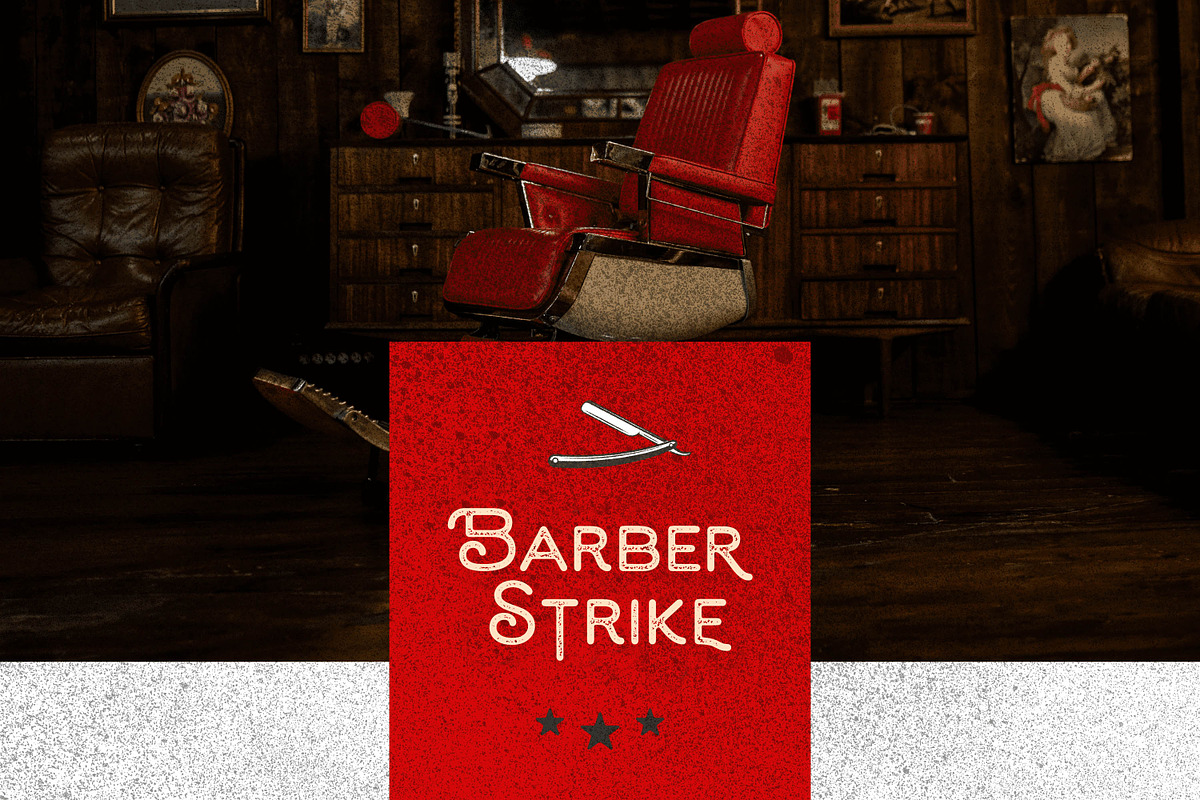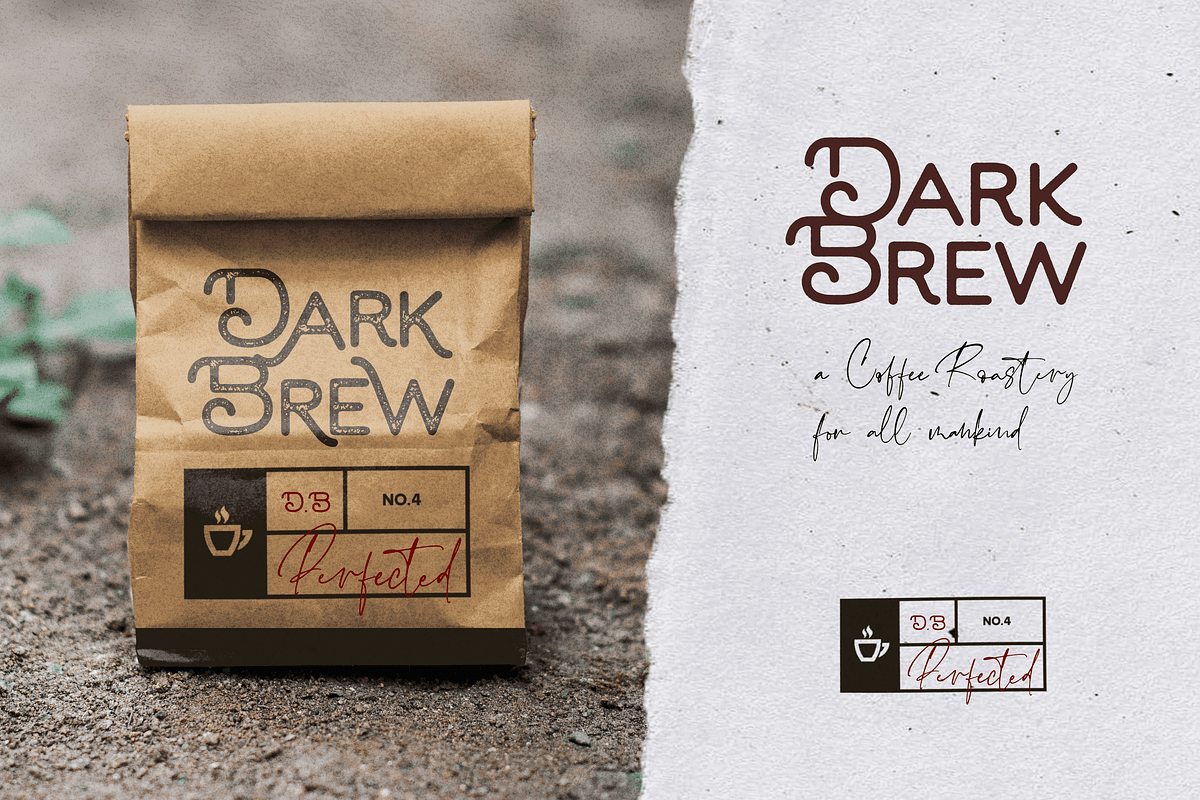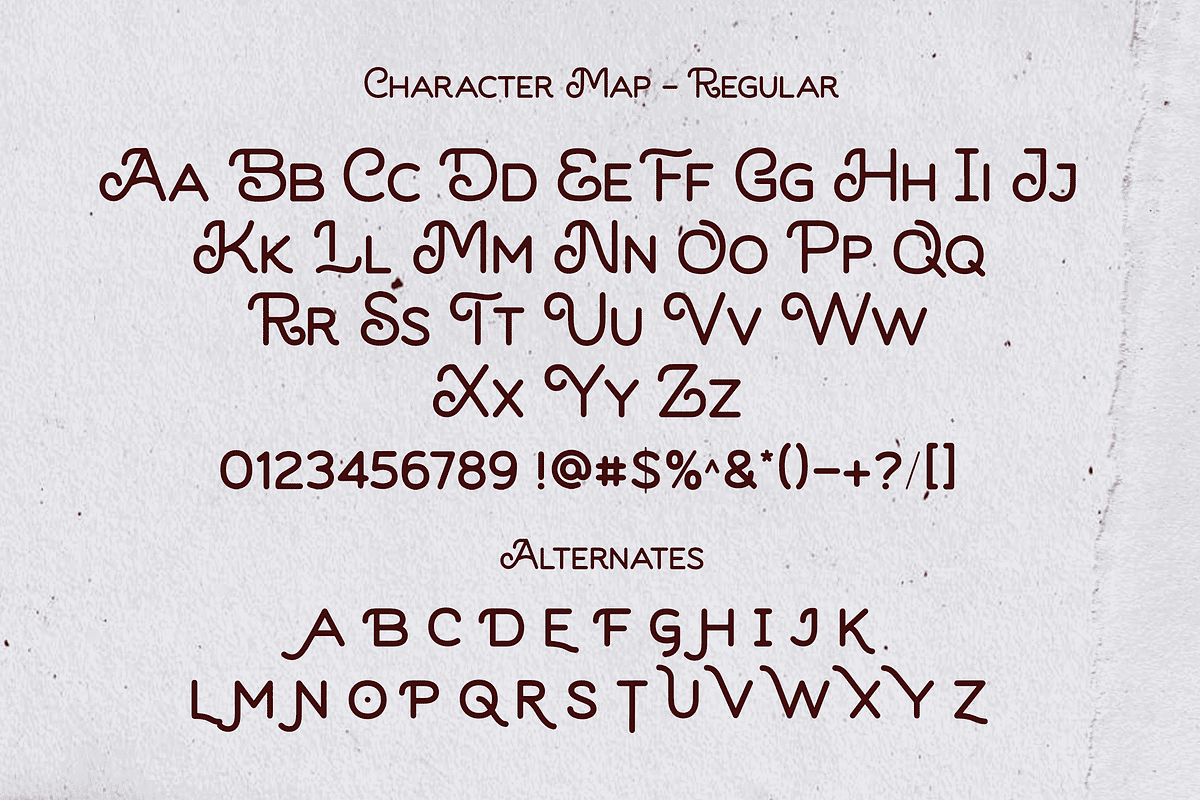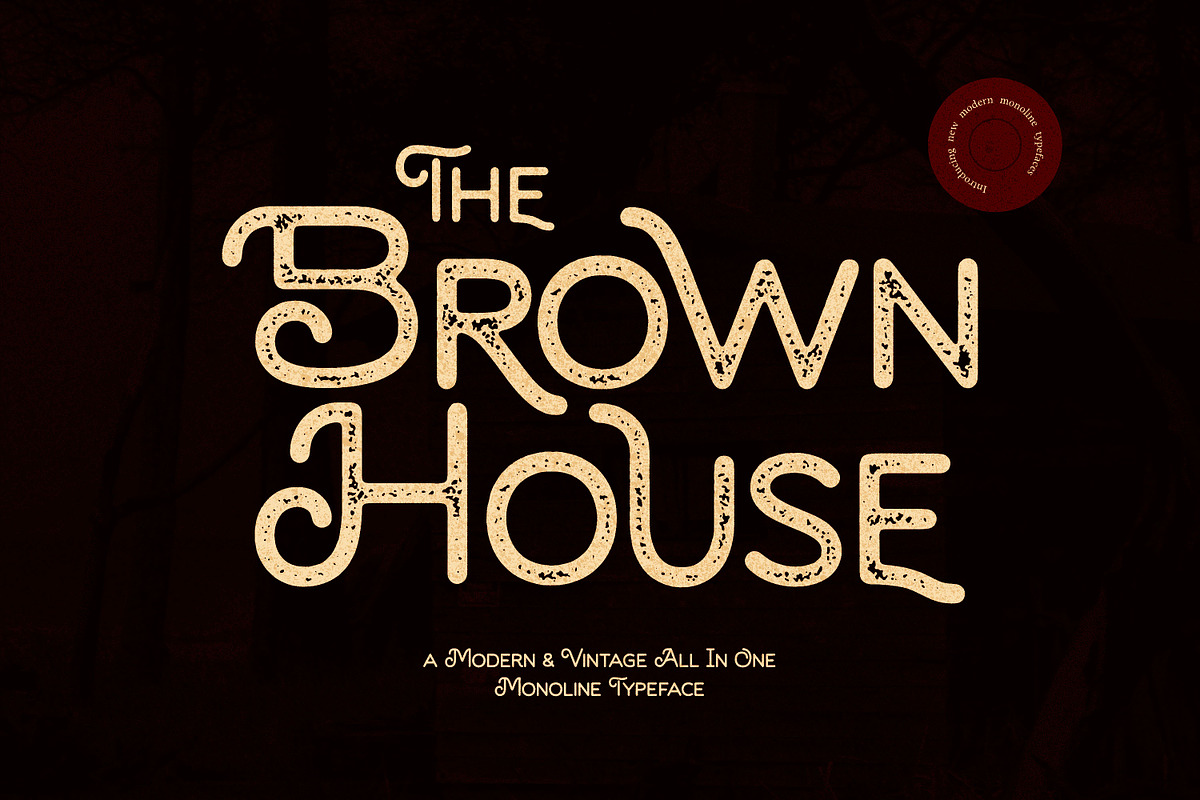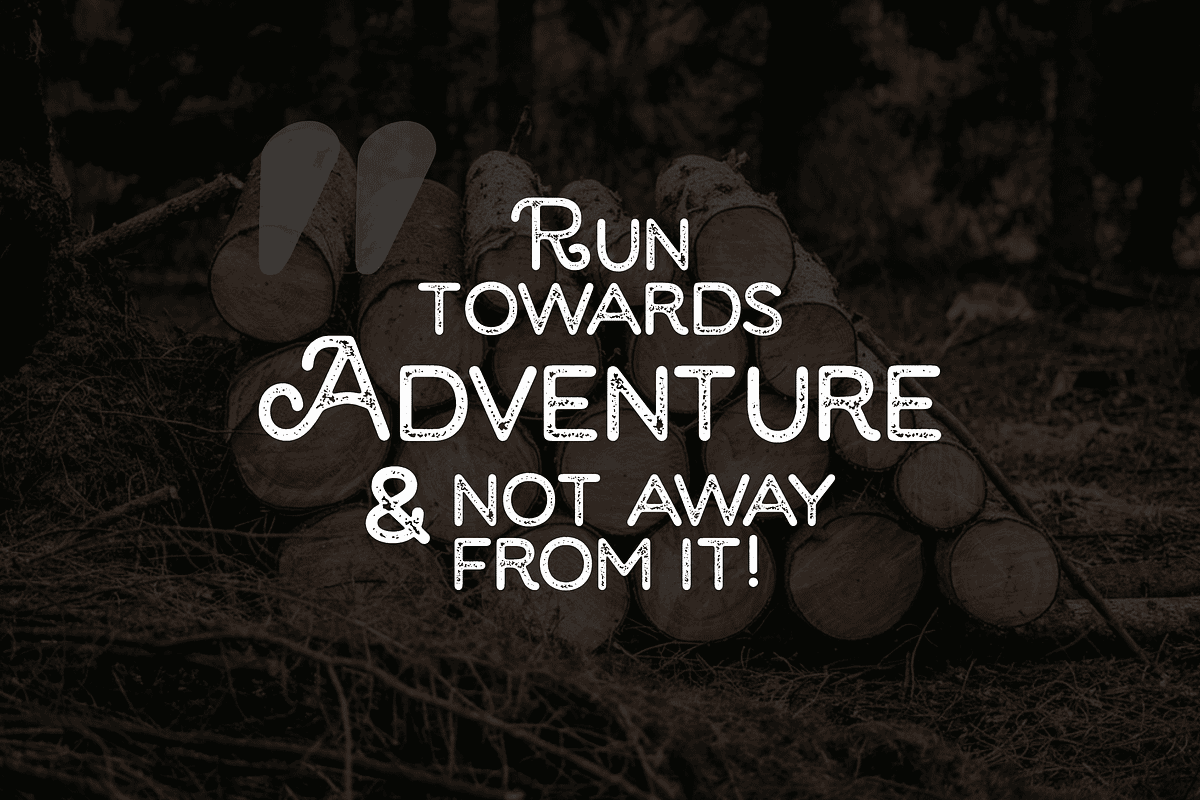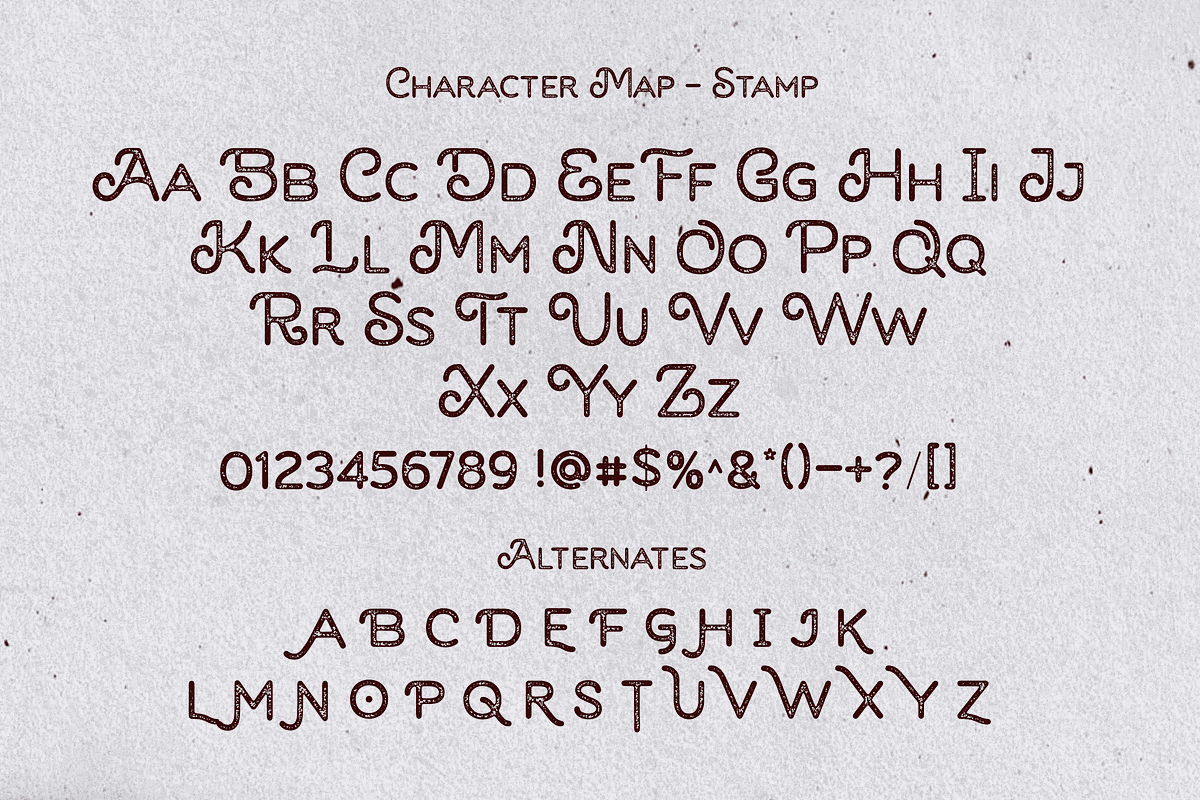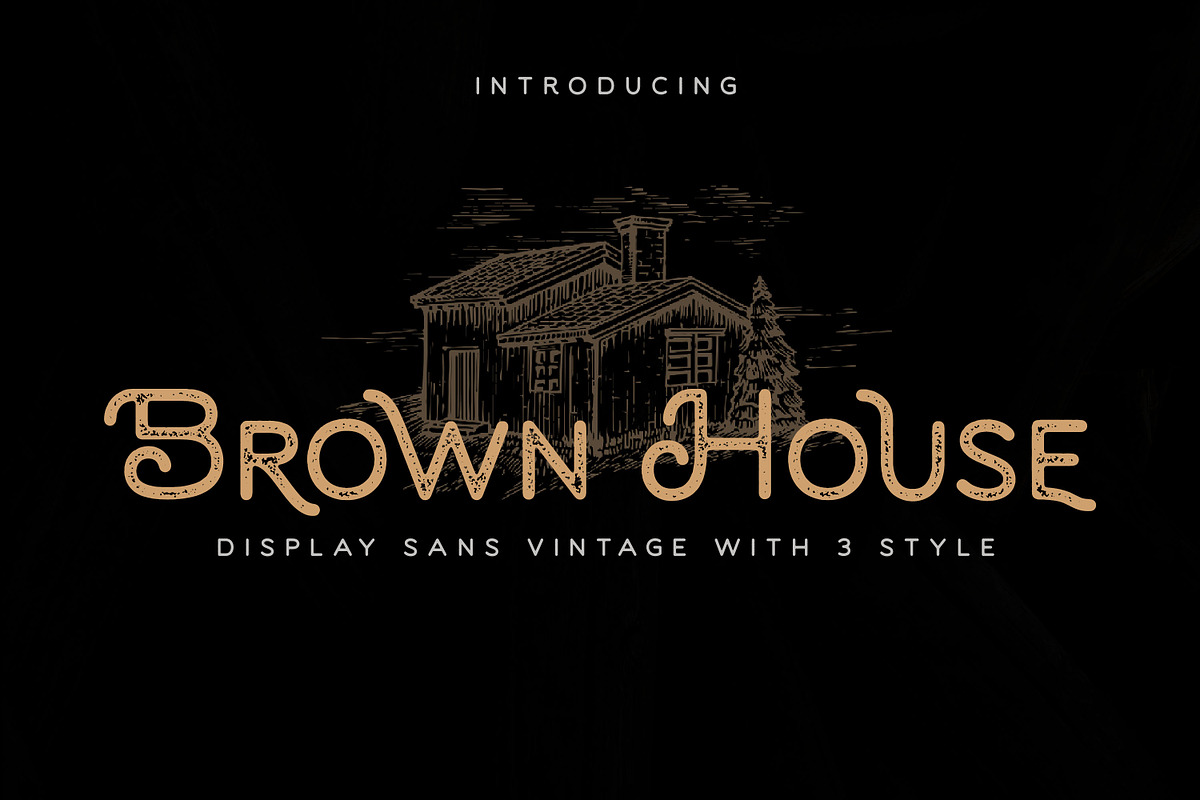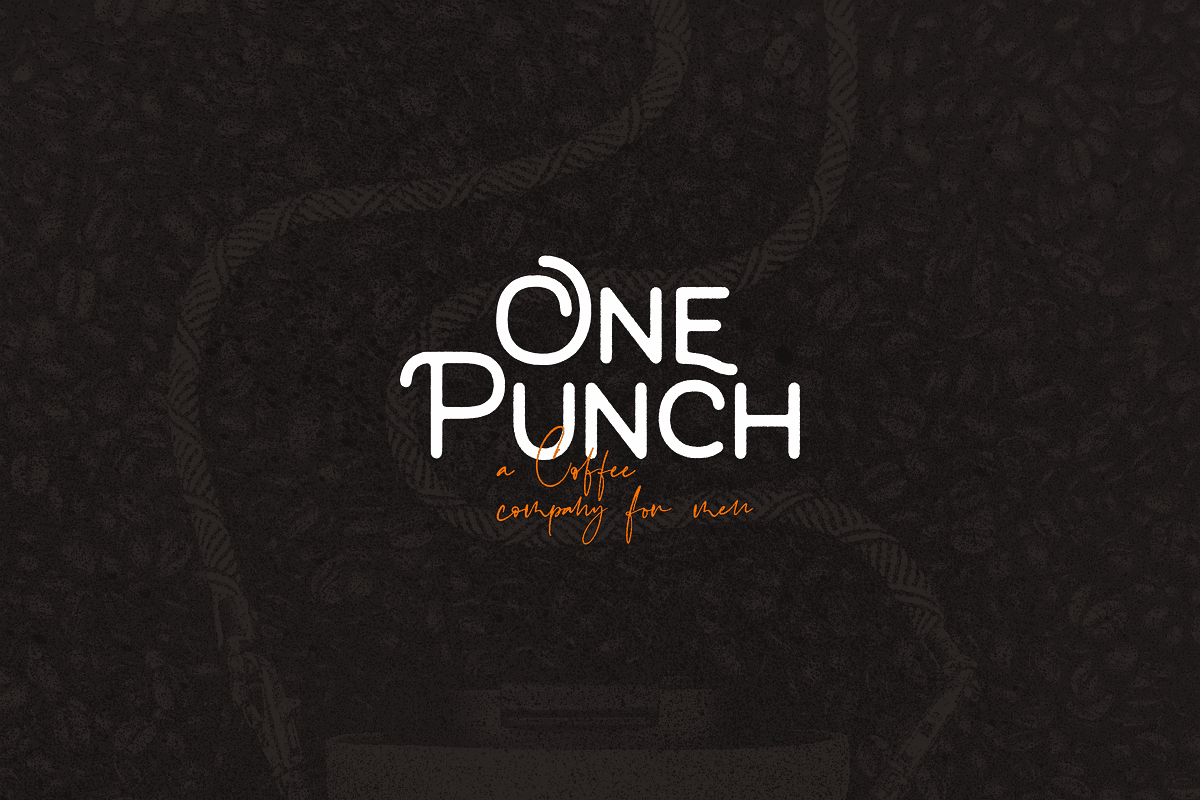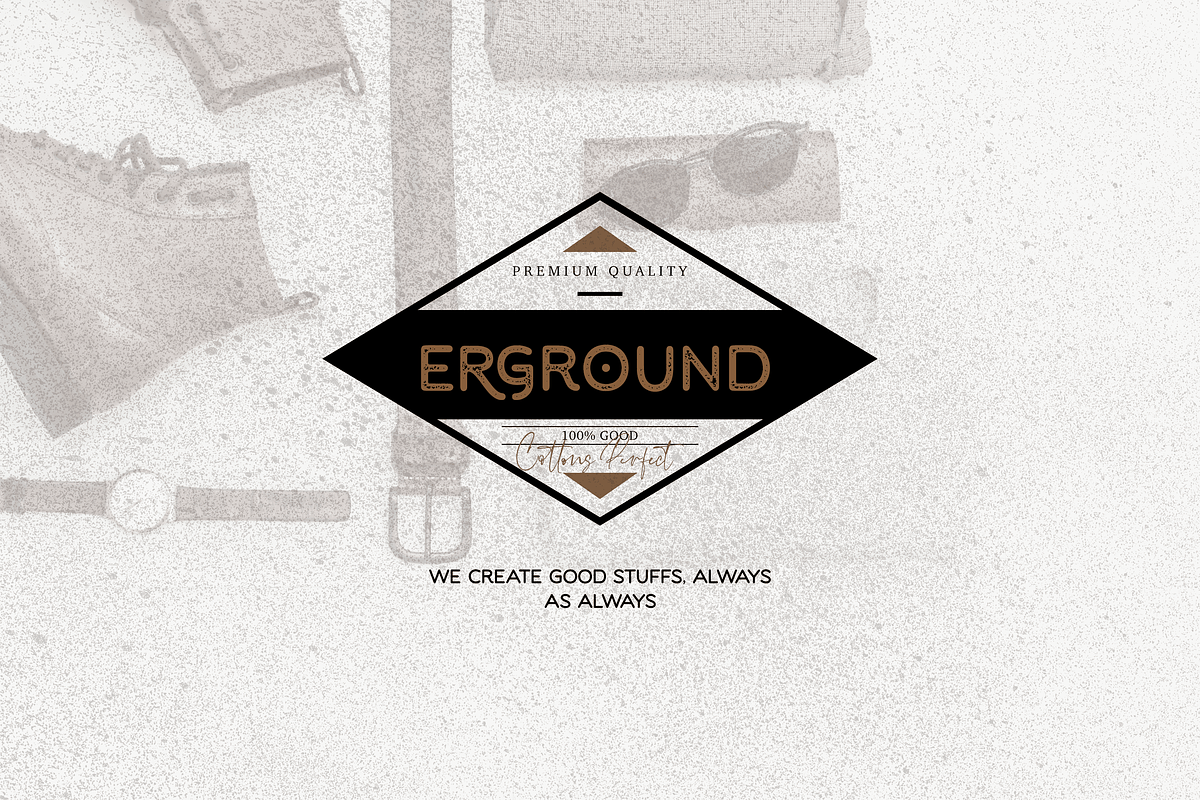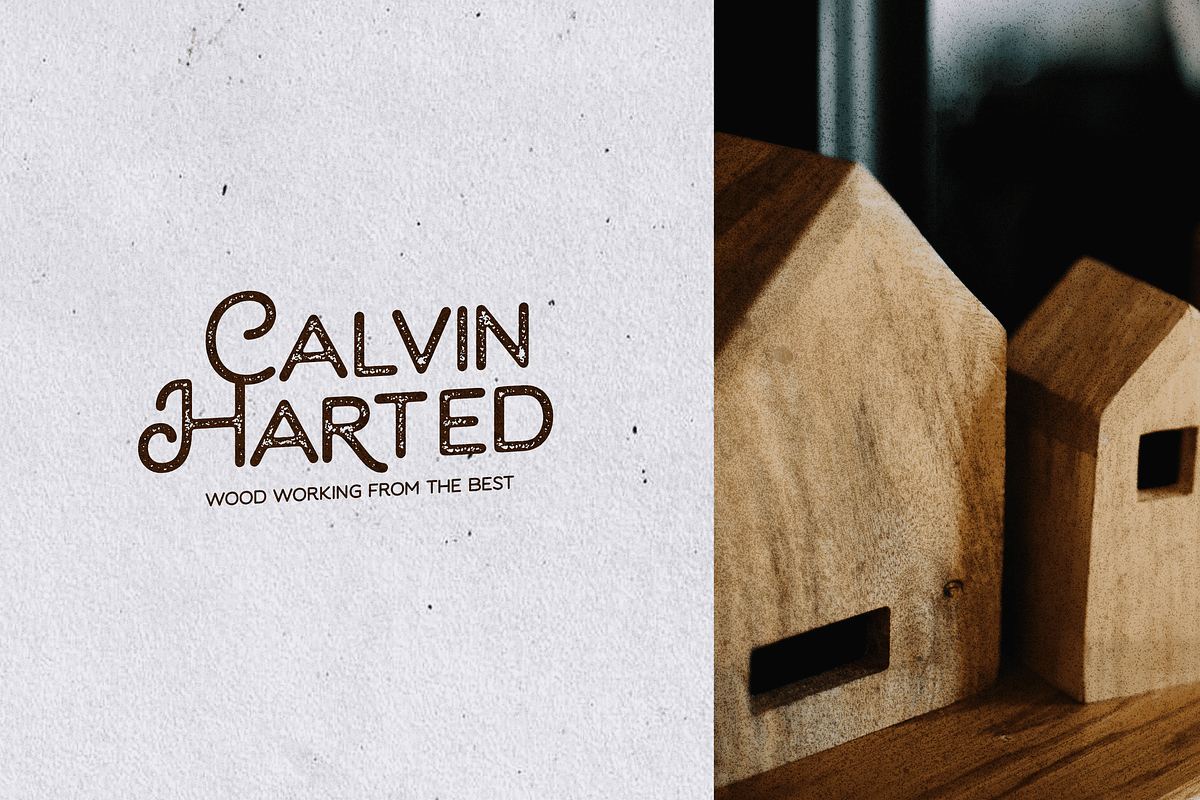
Brown House - A Modern & Vintage
Introducing our latest display typeface called Brown House - Vintage Typeface with vintage taste and can make your logotype become more interesting. Best Vintage font with 3 styles Regular,Rough,And Stamp, special alternative glyphs, and multilingual support. inspired by the decorative arts and architecture movement
Brown House fonts is perfect for your project and allows you to create designs, headlines, posters, logos, badges, t-shirts and many more that are beautiful. It is also best used for posts, logos, posters, certificates, labels and more.
- Alternate glyphs
- Multilingual Accent